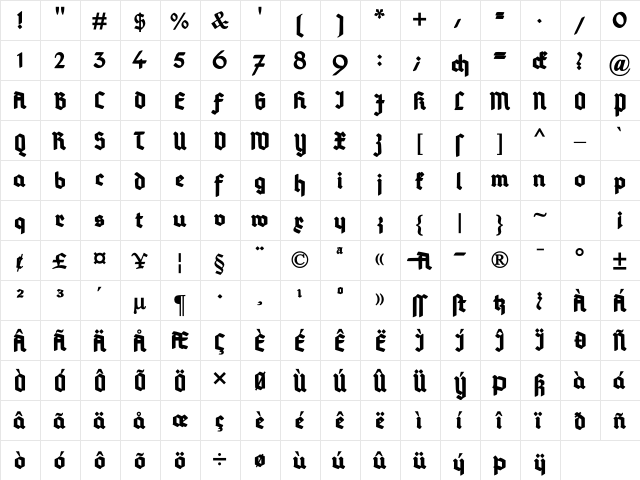
Deutsch-Gotisch Heavy Regular
| Designer | Dieter Steffmann, Kreuztal |
Design Context for Deutsch-Gotisch Heavy Typeface
Deutsch-Gotisch Heavy takes a measured approach to typography — its balanced proportions and neutral character make it a reliable workhorse for both digital and print work.